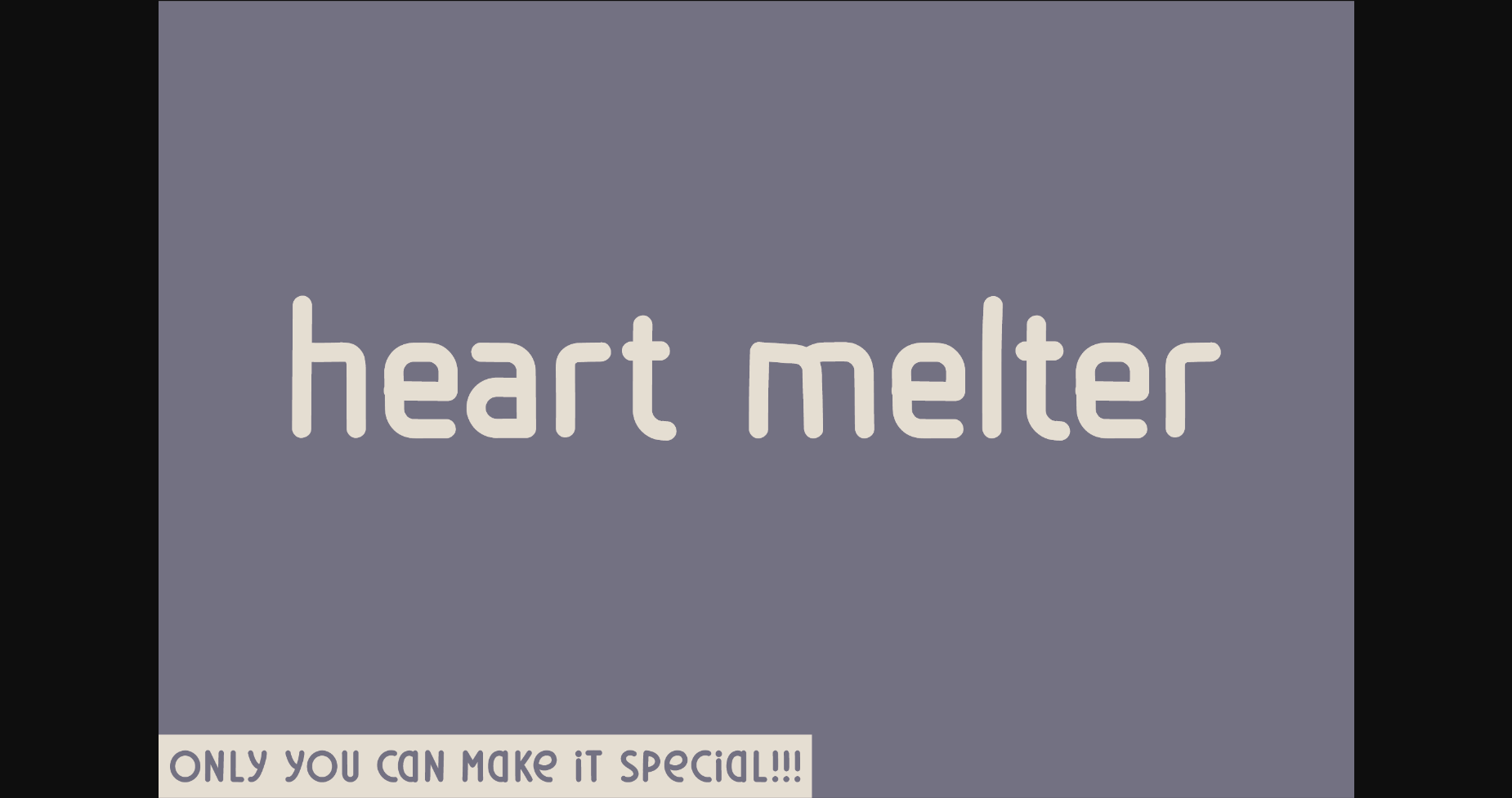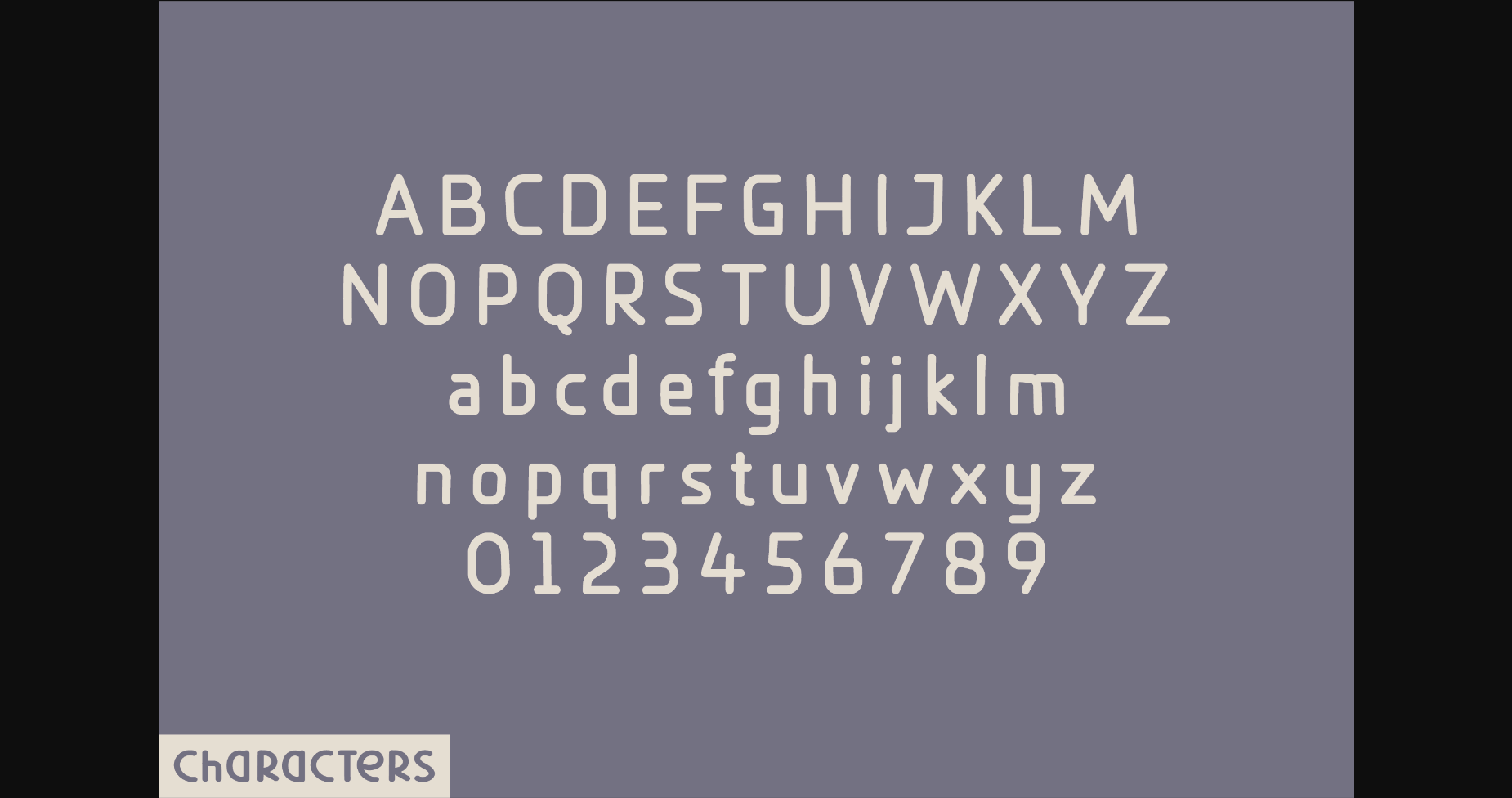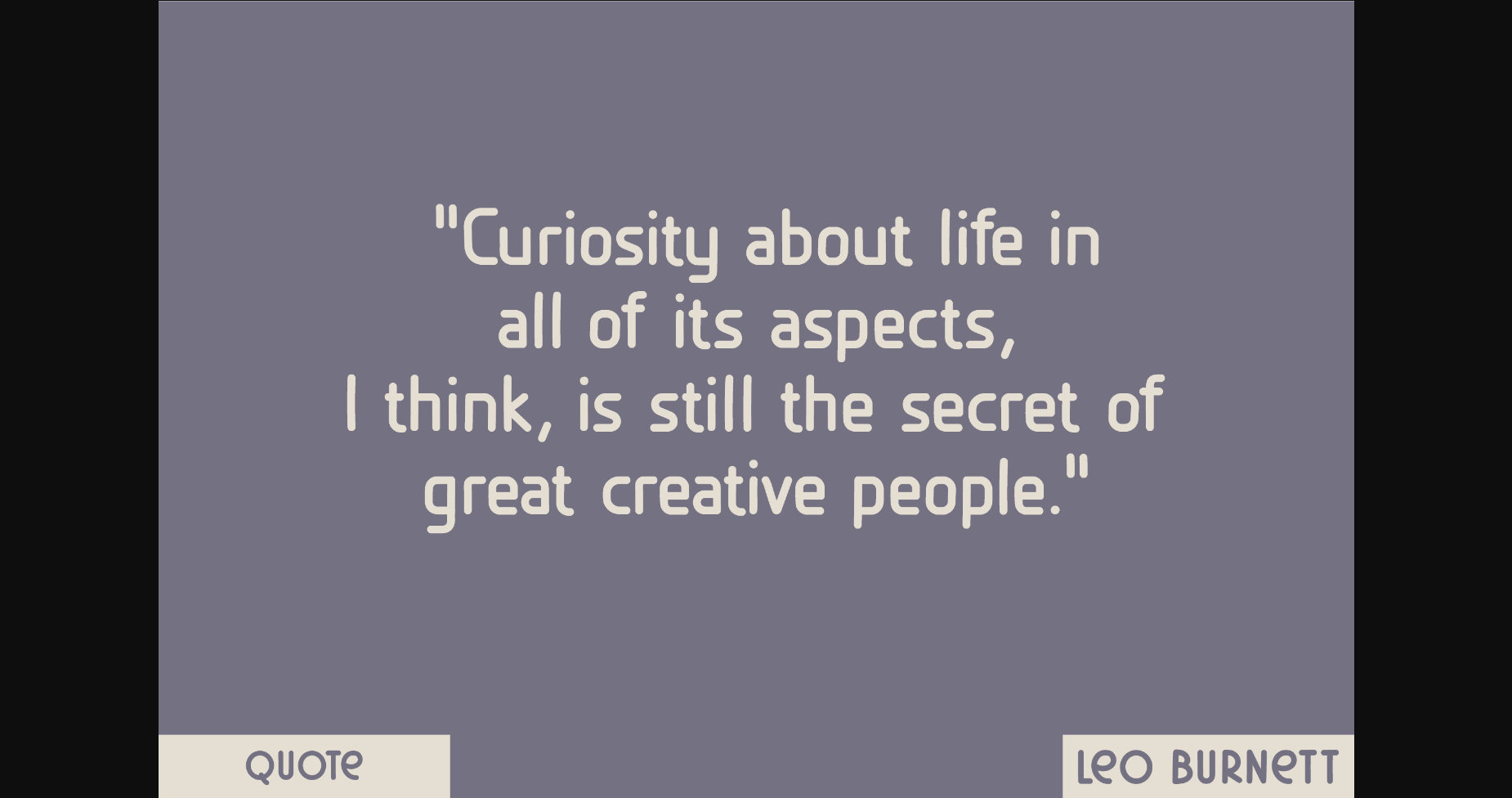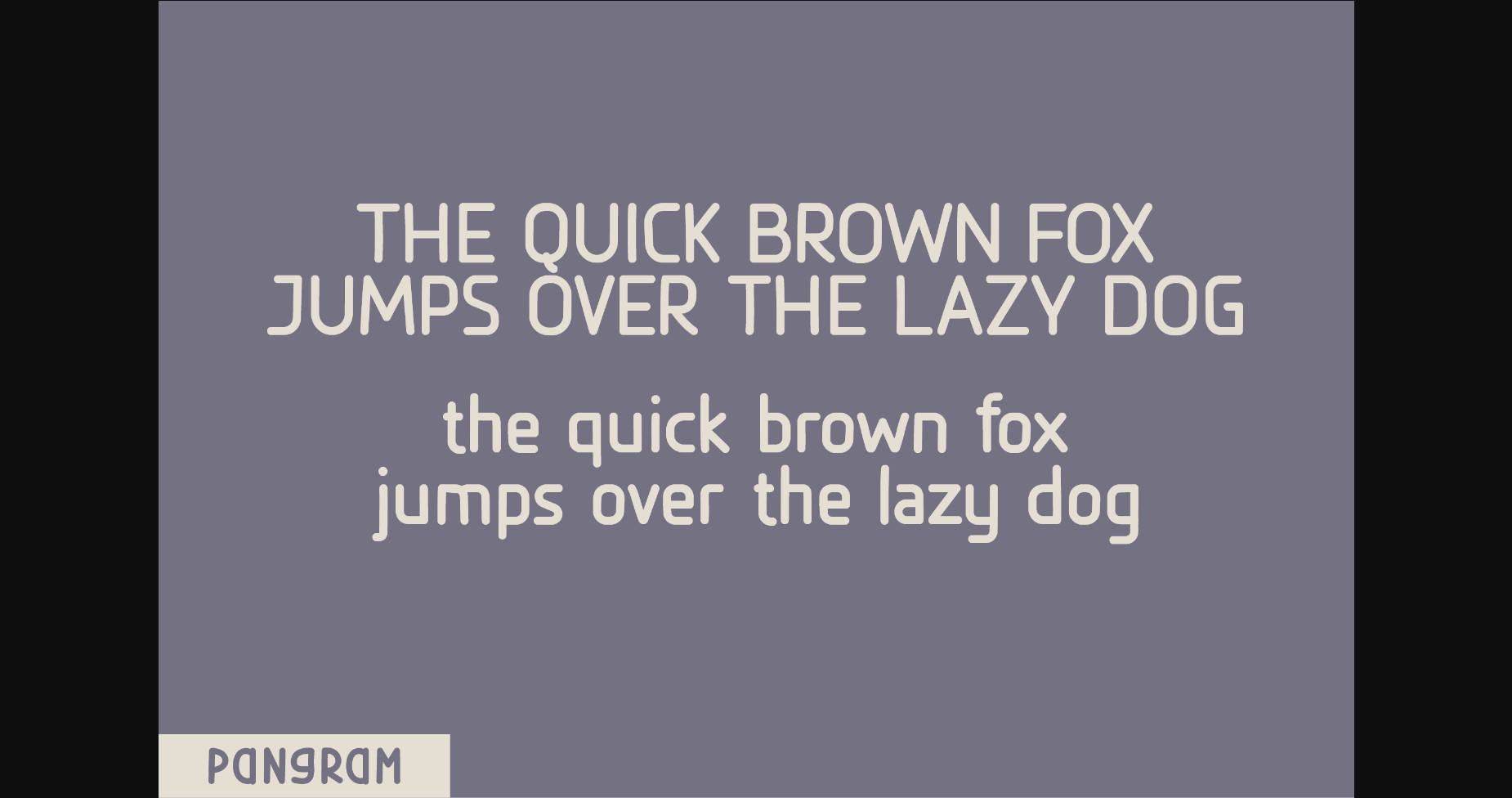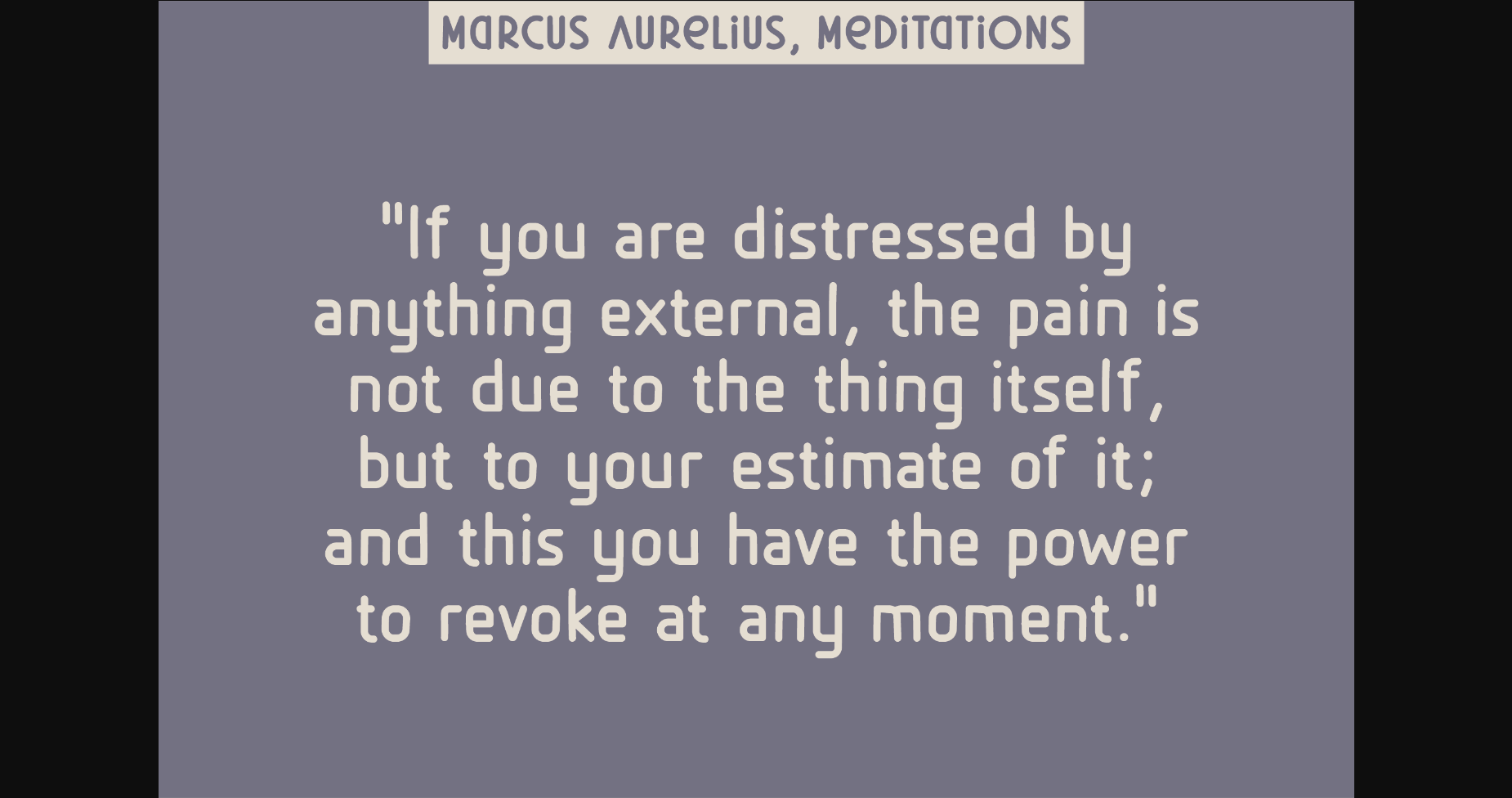
HomeSans Serif FontsHeart Melter Font Sans Serif Fonts Heart Melter Font FacebookTwitterPinterestWhatsApp 1 of 7 ... Heart Melter Font Poster 2... Heart Melter Font Poster 3... Heart Melter Font Poster 4... Heart Melter Font Poster 5... Heart Melter Font Poster 6... Heart Melter Font Poster 7... About Heart Melter Font Heart Melter is a bold and unique sans serif font, perfect for quotes, notes, tees, logos, social media and any design that requires a classic touch. DOWNLOAD NOW People also explored Analisa Font Raphael Created Font Anybaby Font Starlight Font White Rose Font Super Oktober Font Serfeb Font Shopping Script Font Standberg Font 188 0 TagsHeart Melter Font Previous articlePrecious FontNext articleCheeky Monkey Font LEAVE A REPLY Cancel reply Comment: Please enter your comment! Name:* Please enter your name here Email:* You have entered an incorrect email address! Please enter your email address here Website: Save my name, email, and website in this browser for the next time I comment. Personal Use Free BD Algebra Personal Use Free Read more about this font White Rose Personal Use Free Read more about this font Dandelions Bloom Personal Use Free Read more about this font Old Linoleum Personal Use Free Read more about this font BLOG Best Fonts for YouTube Videos: Make Your Thumbnails Stand Out Best Fonts for YouTube Videos: Make Your Thumbnails Stand Out Choosing the right font can make a massive difference in how your YouTube videos perform.... To increase your work productivity, choose the most readable fonts. Free vs Paid Fonts: Why Investing in Premium Fonts Is Worth It Exploring Font Trends